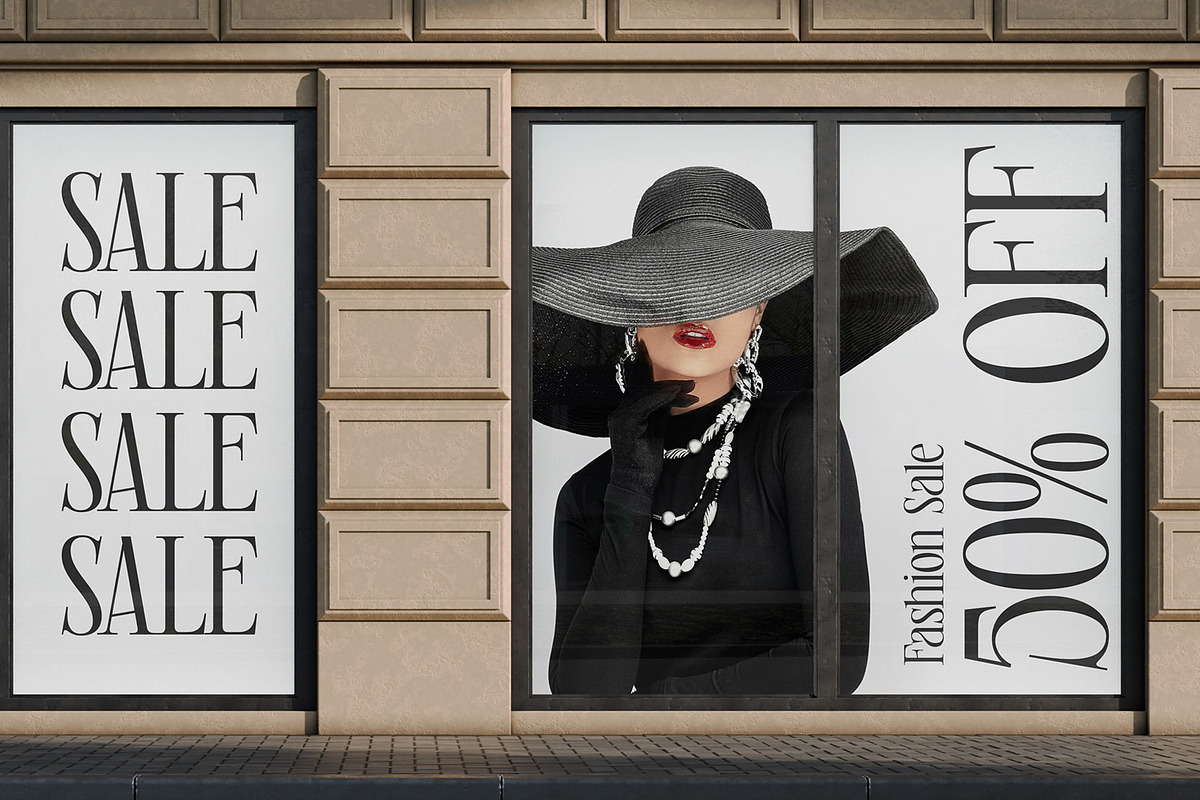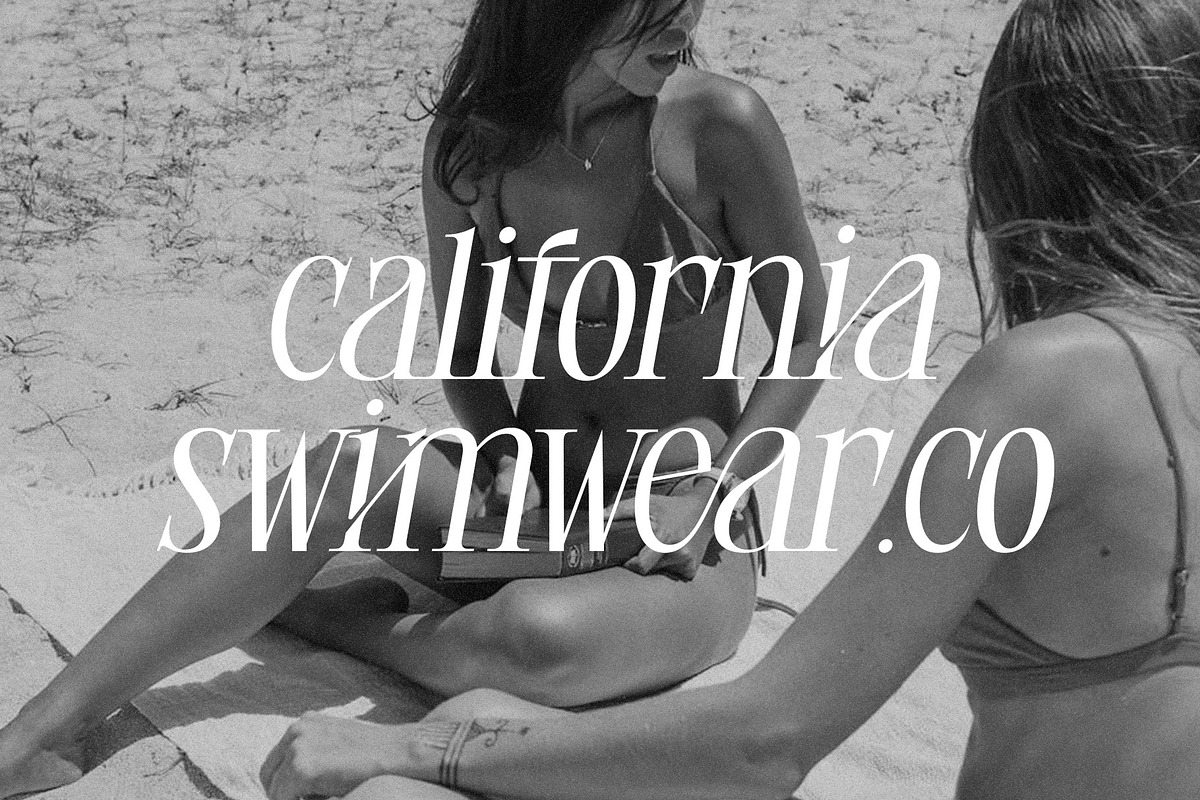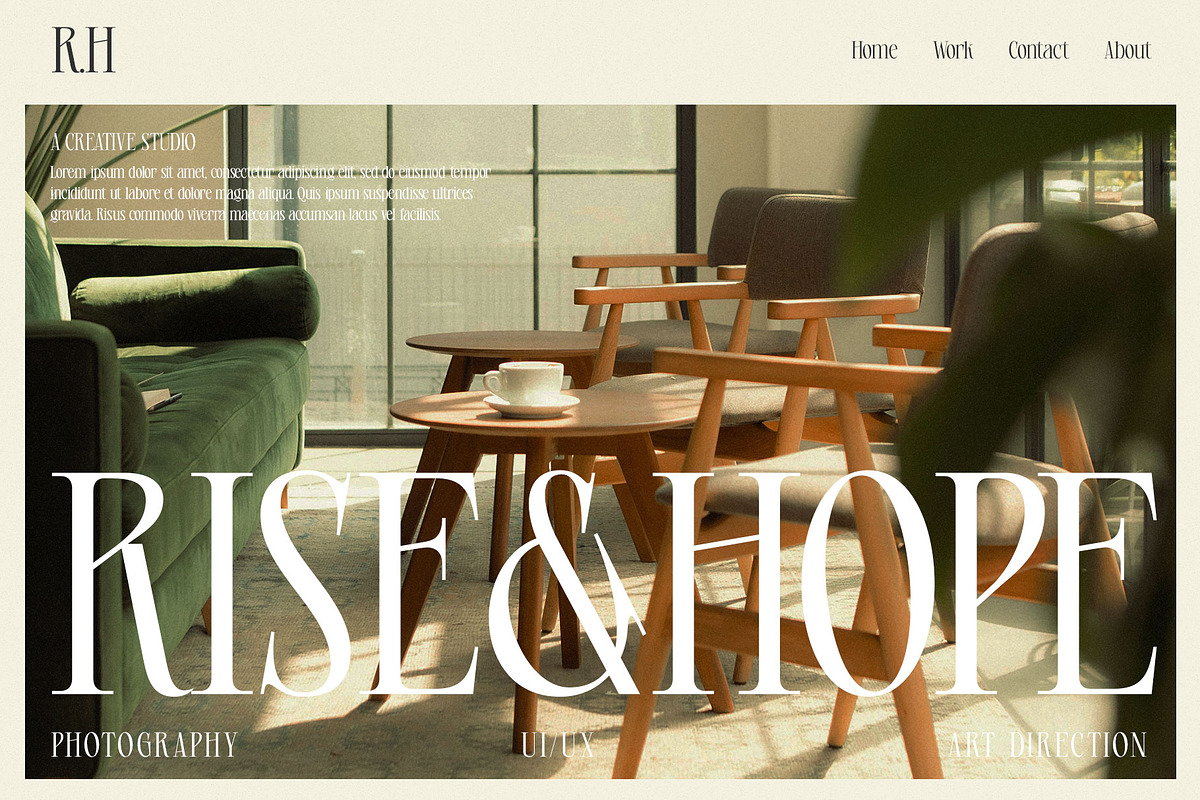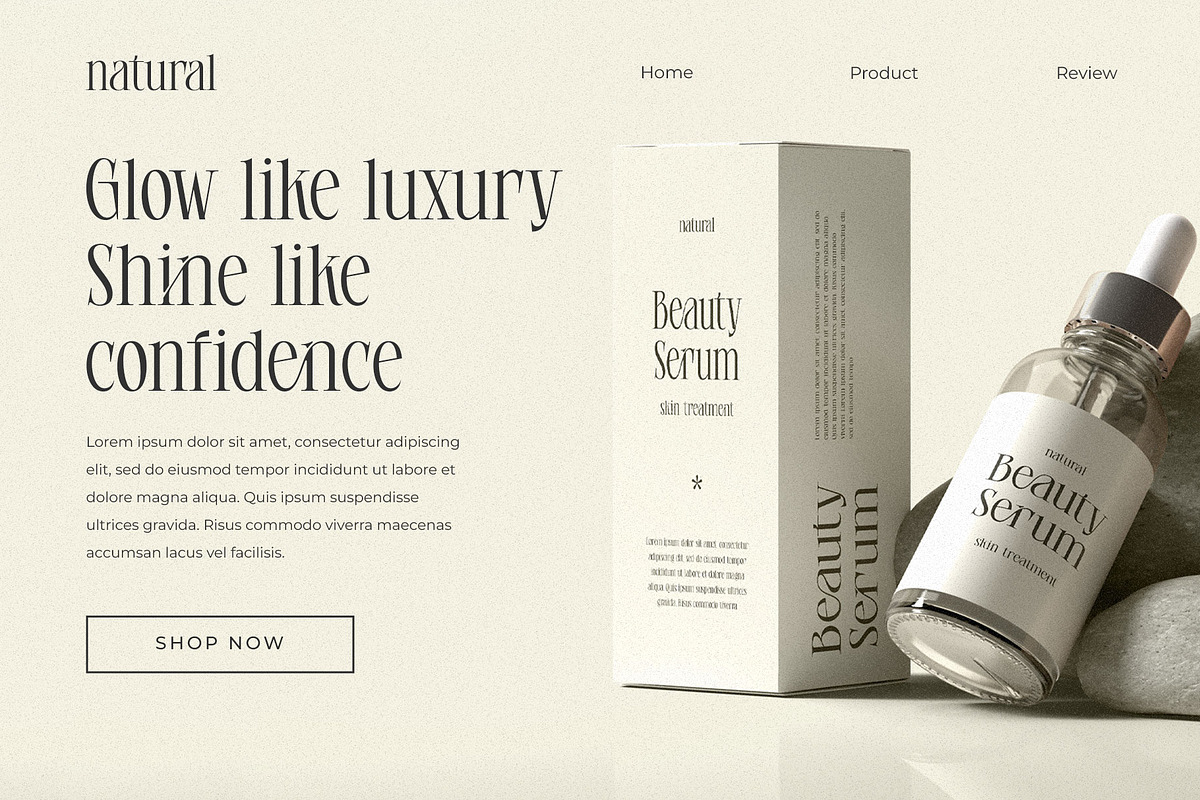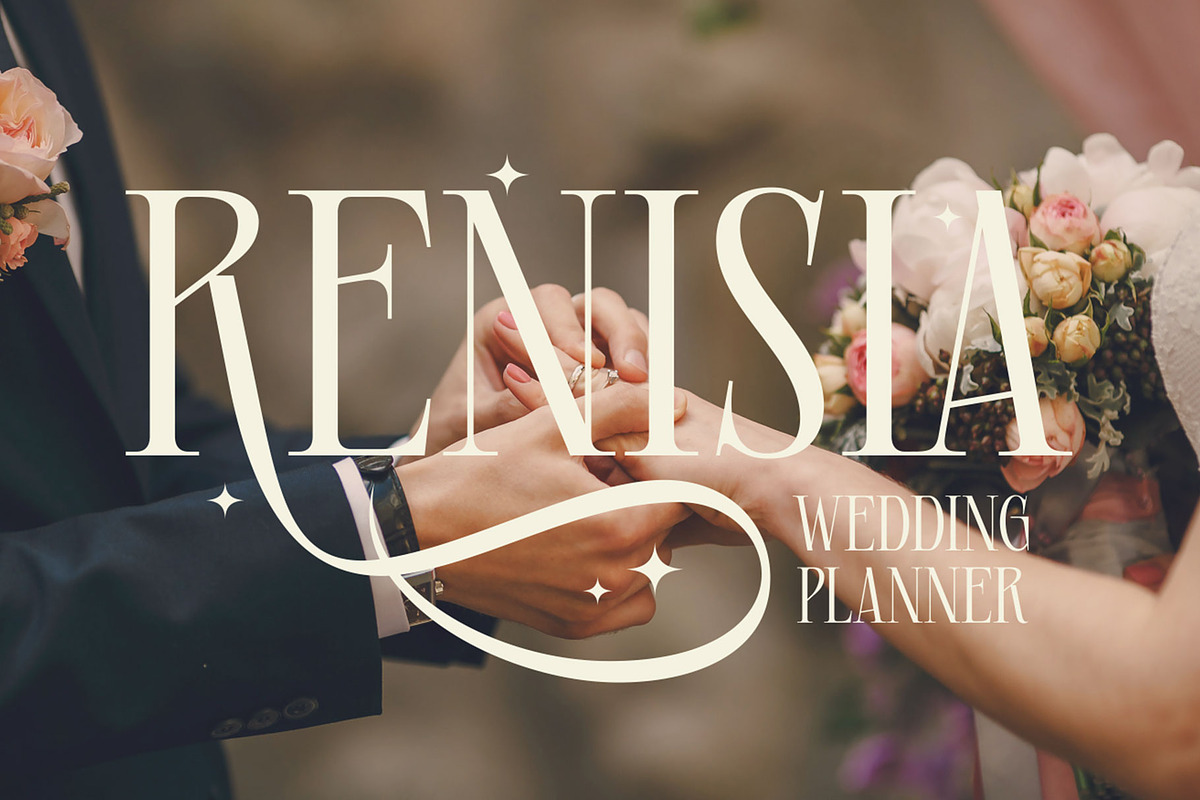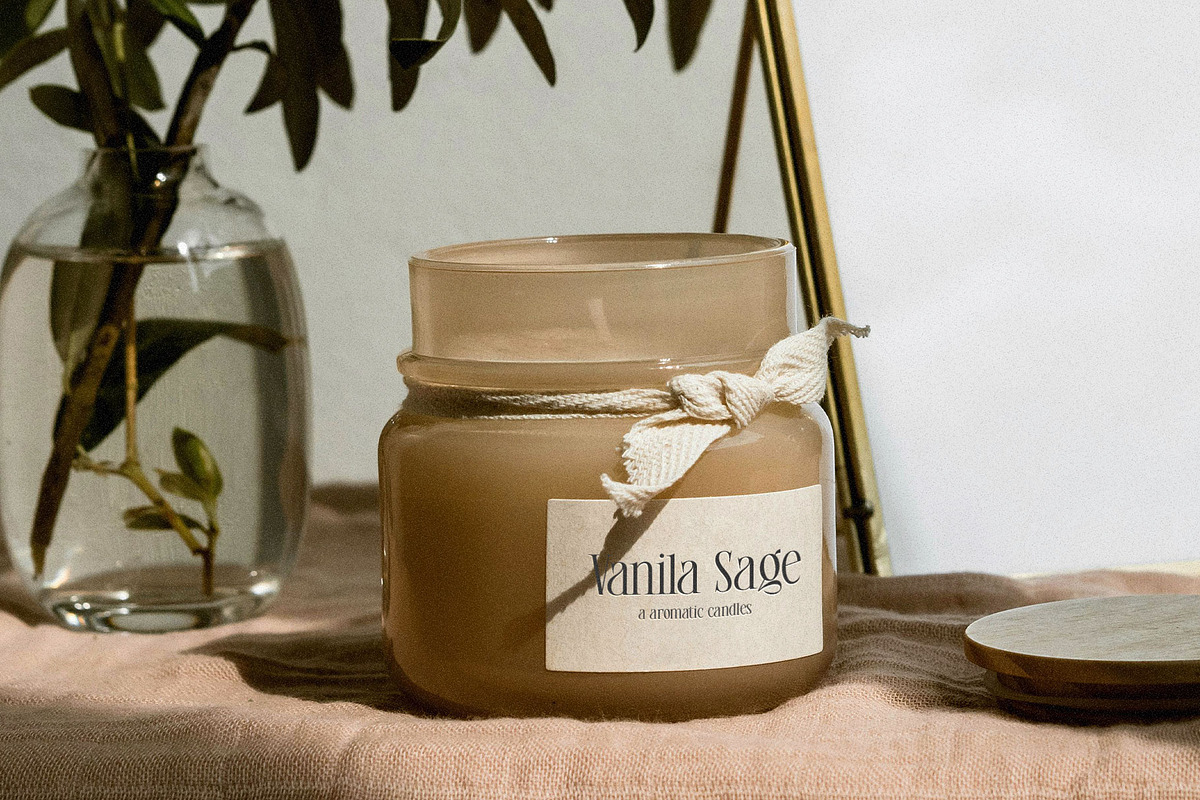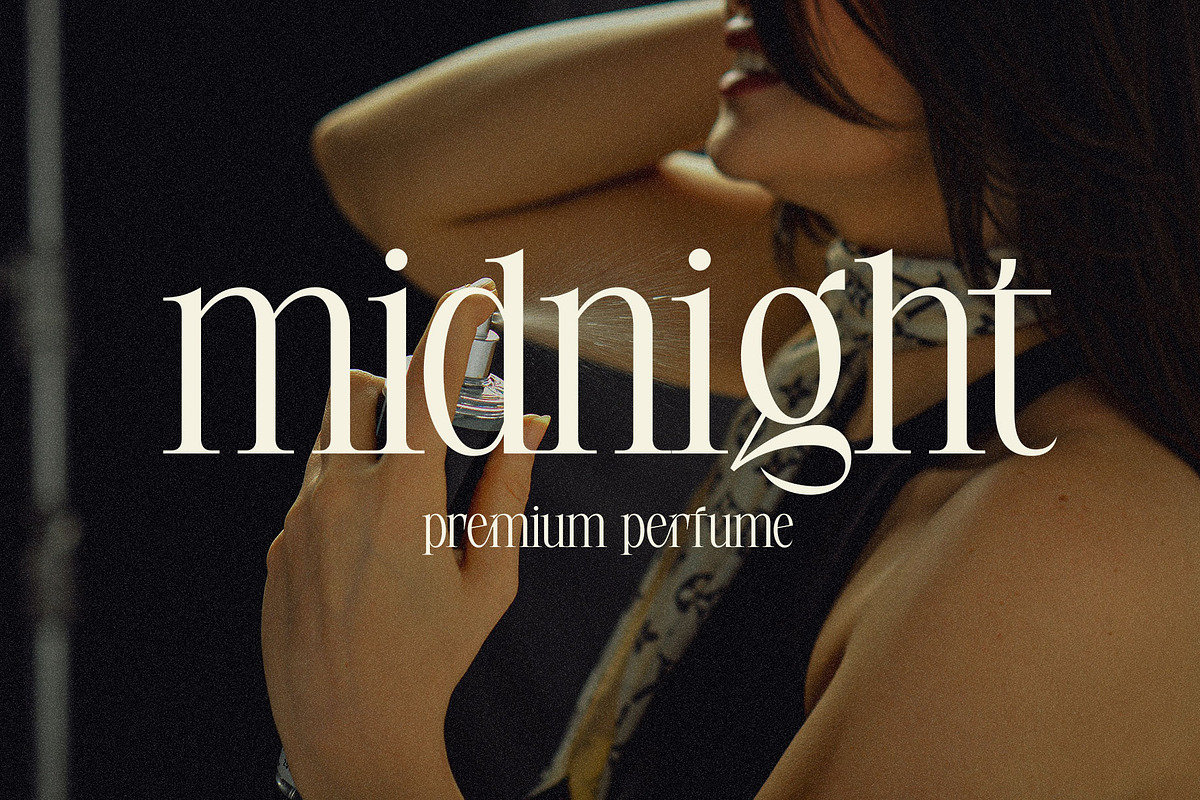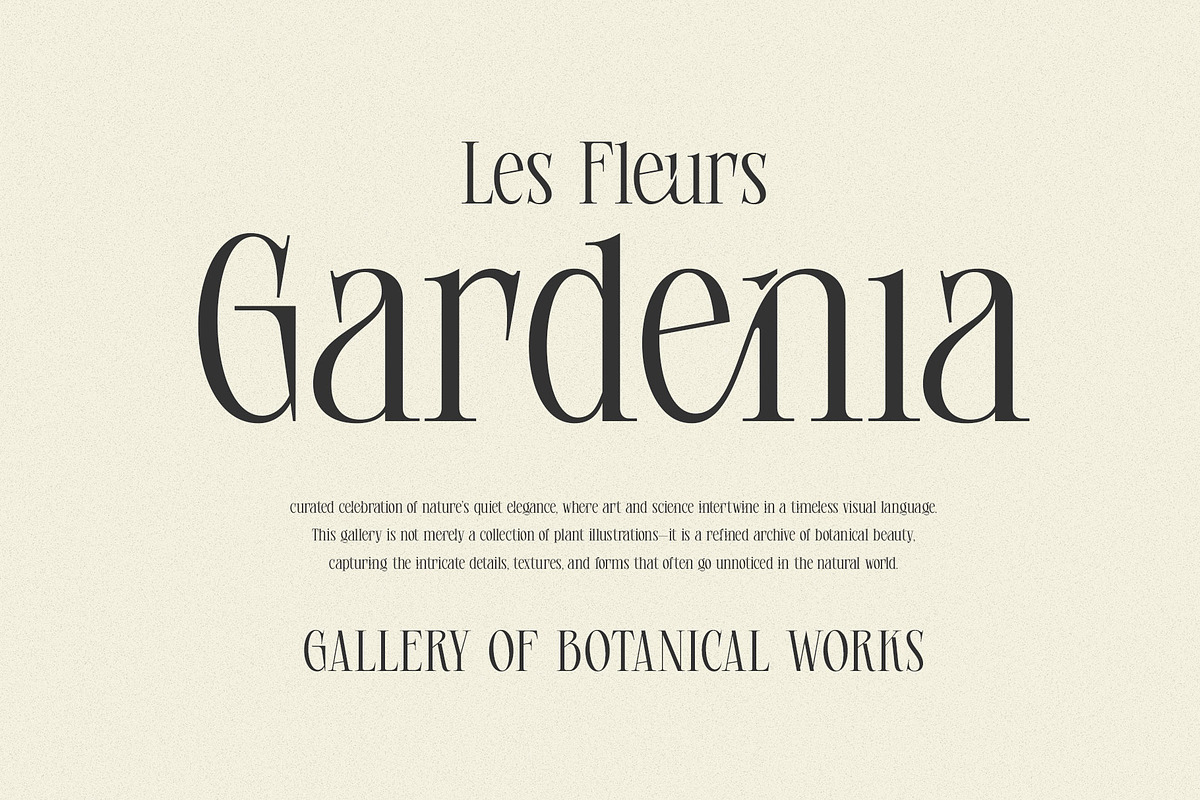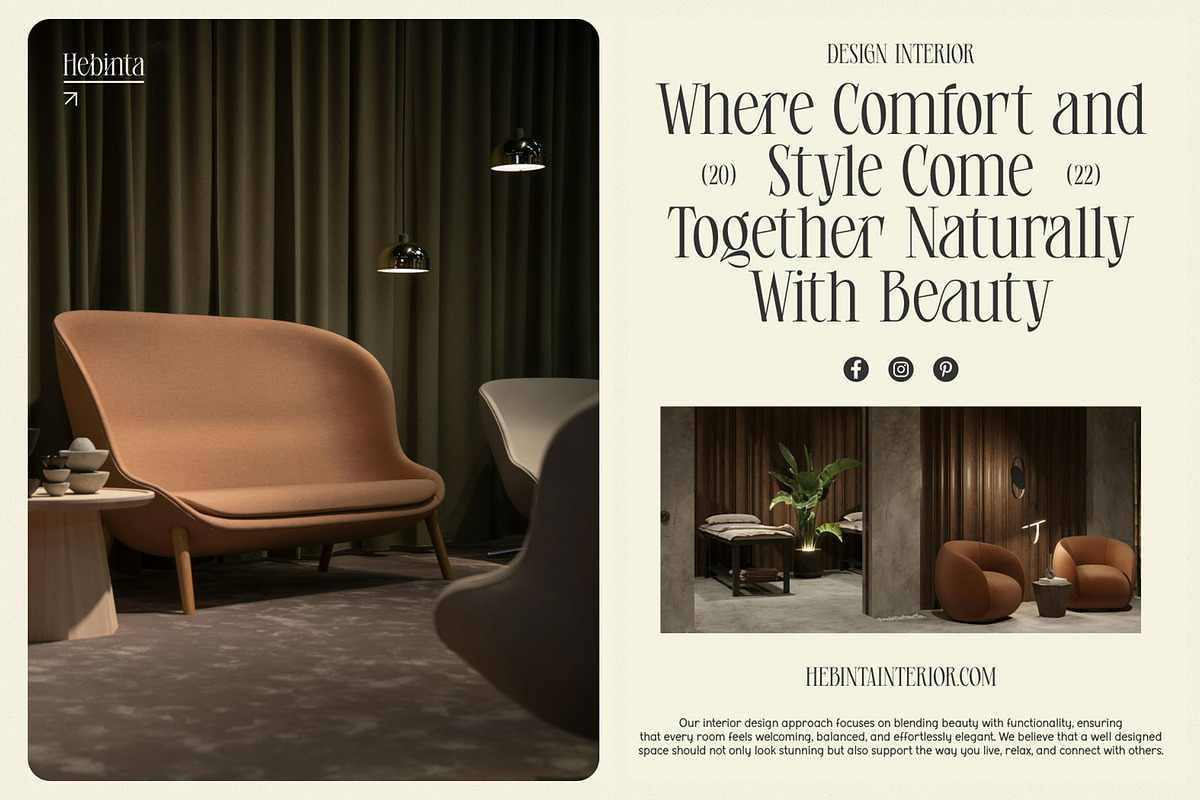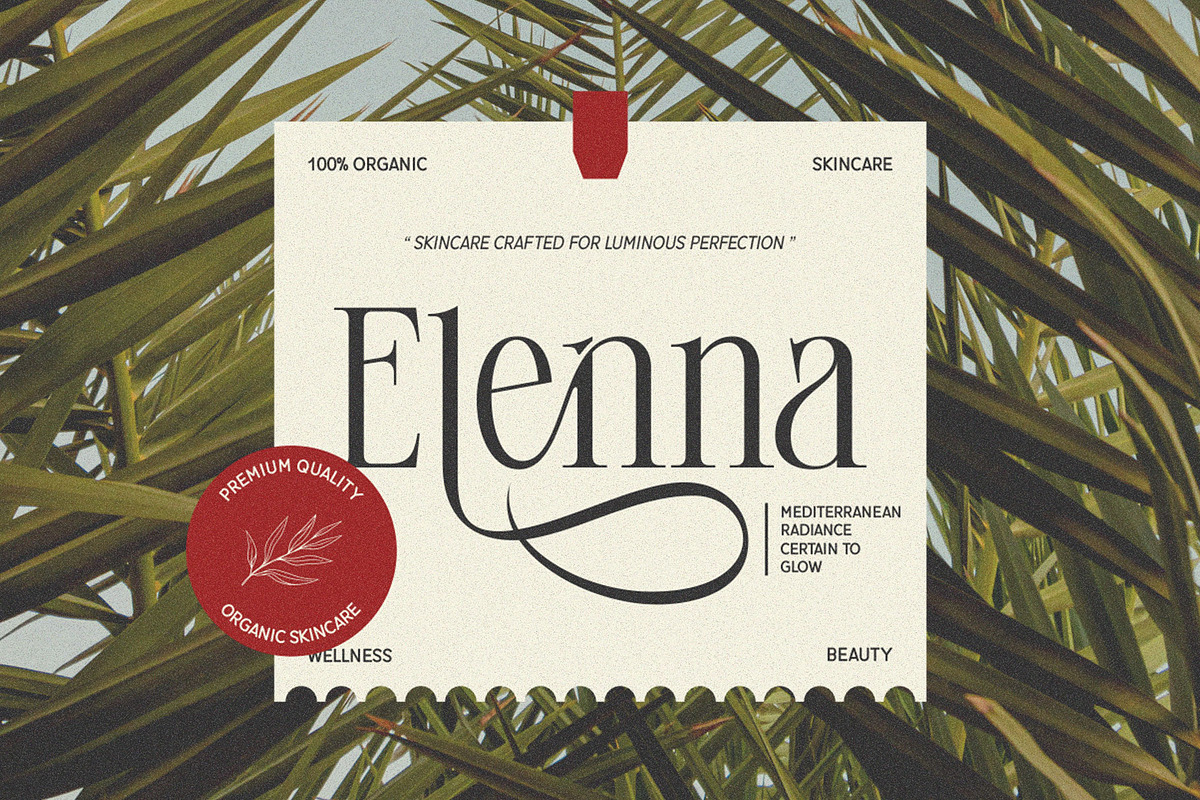
Gelinsia Elegant Stylish Serif Font
Gelinsia is embodies the perfect fusion of timeless sophistication and contemporary flair. It draws from classical typography, where refined serifs and balanced proportions create a sense of grace, yet it introduces subtle modern touches that make it feel fresh, expressive, and fashion-forward. This harmony between tradition and style allows the font to stand out as both enduring and relevant in today’s design landscape.
Gelinsia is a perfectly choice for any creative endeavor, creating, modern, lifestyle design such as logotype, title, cover, branding, invitations, wedding designs, display and magazine, social media posts, advertisements, printed quotes, product packaging, corporate brand, product designs, labels, photography, watermarks, special events and any other project with modern touch.
Alternate and ligature